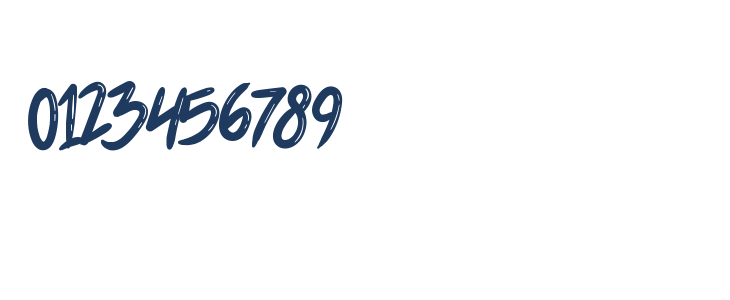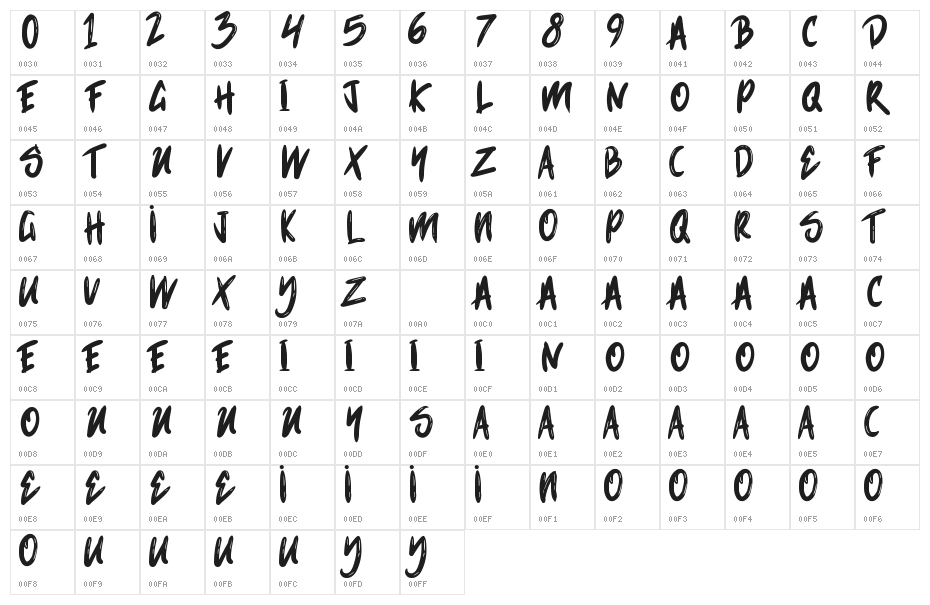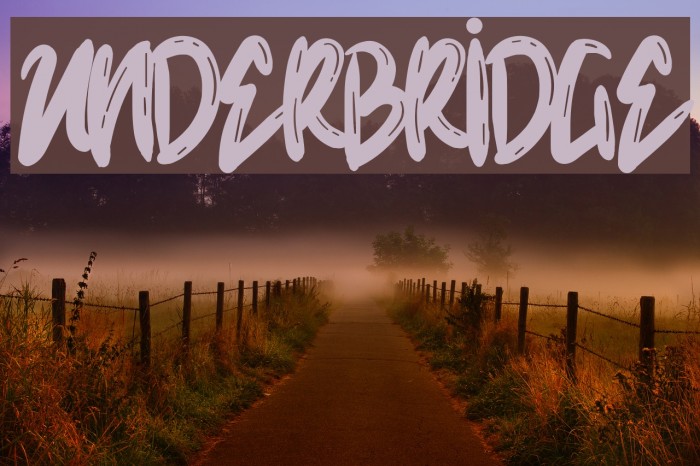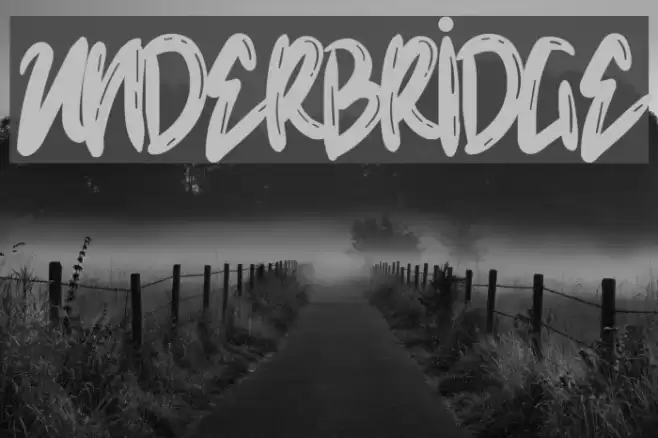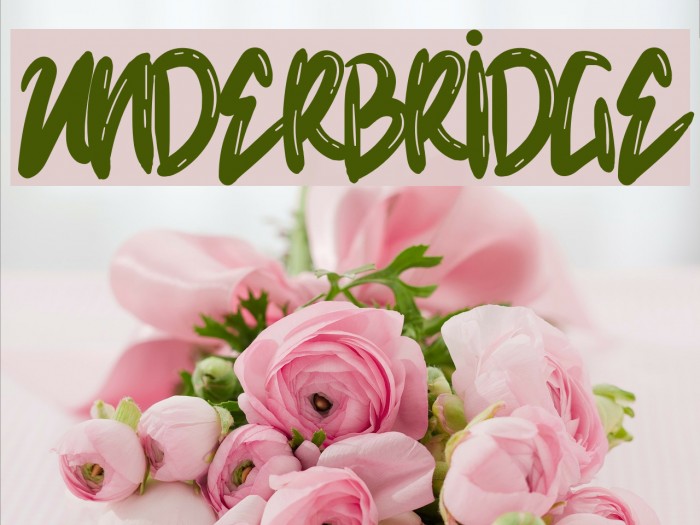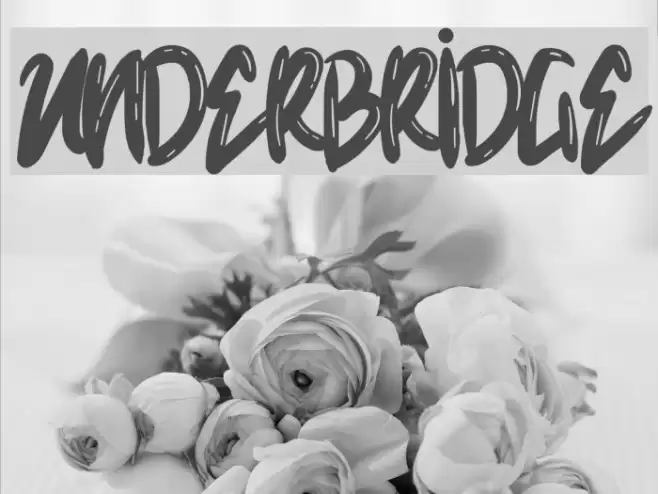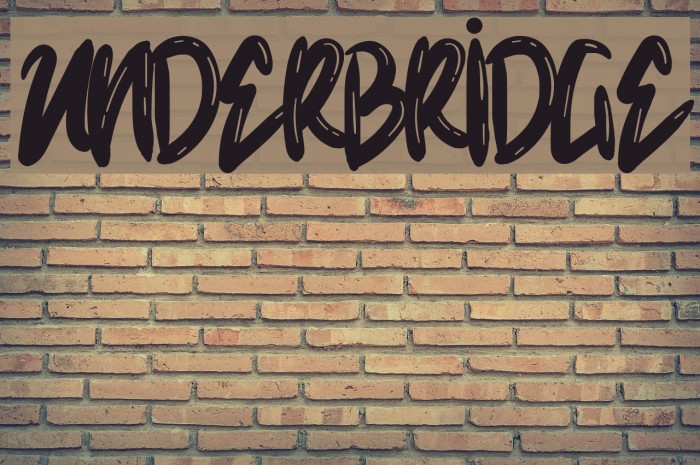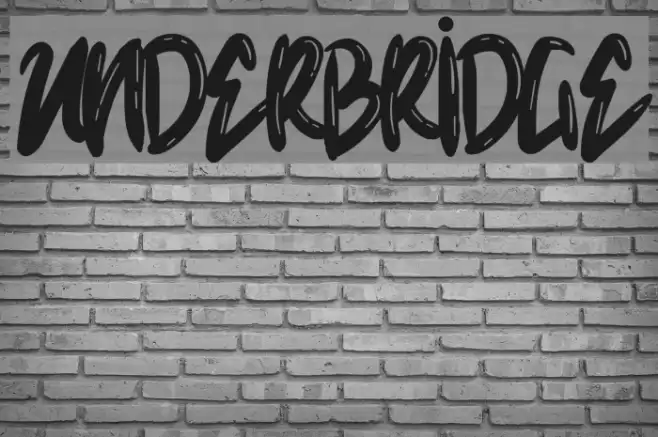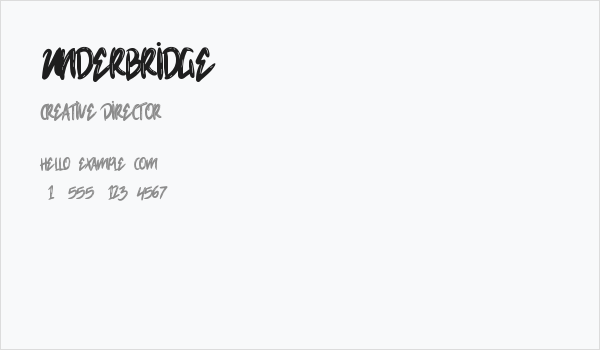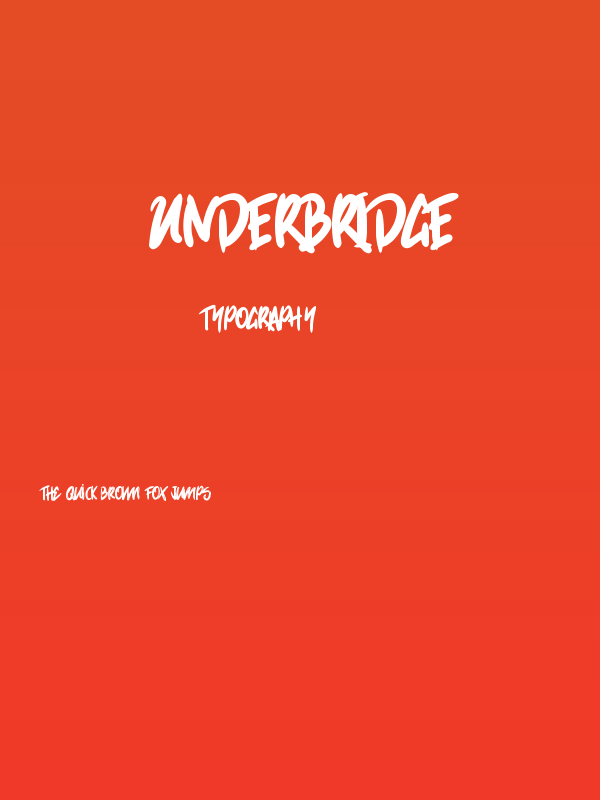
Underbridge Font
Underbridge Description
This font exudes a bold and energetic style, characterized by its thick, brush-like strokes that convey a sense of movement and dynamism. The letters are crafted with a hand-drawn aesthetic, giving it a personal and informal touch. The uppercase and lowercase letters maintain a consistent flow, with slightly exaggerated curves and angles that enhance its expressive nature. The numbers and special characters follow the same lively design, ensuring a cohesive look across all elements. This font is perfect for projects that require a strong visual impact and a touch of creativity.
| Proposed Projects | Ideal for branding, posters, social media graphics, and any design needing a bold, artistic flair. |